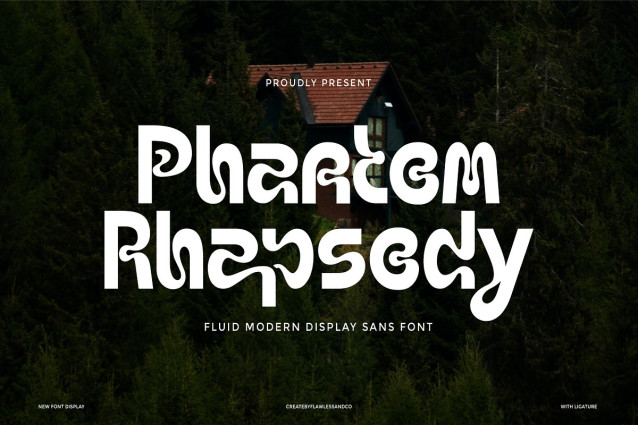
Phantom Rhapsody Font
Phantom Rhapsody Font is a classic horror-style display serif font, filled with eerie character and dramatic flair. Designed with sharp details and bold strokes, it brings a gothic atmosphere that’s both haunting and elegant. Whether you’re crafting a spine-chilling movie title, a mysterious book cover, or branding with a dark and powerful identity, PHANTOM RHAPSODY delivers high impact. Its unique letterforms offer both readability and strong visual presence, making it a versatile tool for designers who want to evoke mystery, suspense, and timeless storytelling.